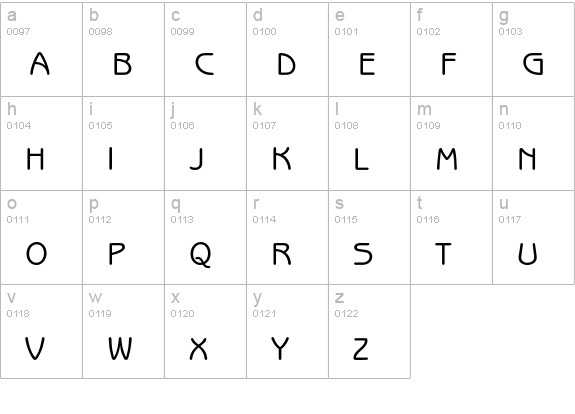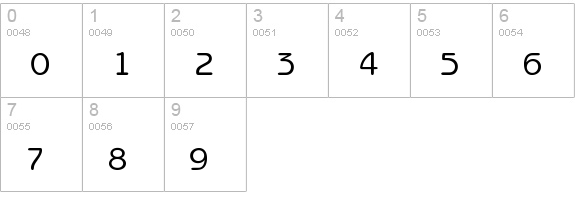
Benguiat Gothic* Expert Book SC is a comfortable, highly readable variant in the Benguiat typeface family \xE2\x80\x94 well suited to long-form body text, articles, and editorial content.
Benguiat Gothic* Expert Book SC font is a classic and elegant typeface that exudes sophistication and professionalism. With its clean lines and sharp edges, this font is perfect for a wide range of design projects, from logos to print materials to web graphics. What sets Benguiat Gothic* Expert Book SC font apart is its versatility - it can be used in both formal and informal settings, making it a go-to choice for designers looking for a font that can adapt to any situation. And the best part? Benguiat Gothic* Expert Book SC font is available for free download at FontsMarket.com, allowing you to access this high-quality font without breaking the bank. So why wait? Elevate your design projects with Benguiat Gothic* Expert Book SC font today!